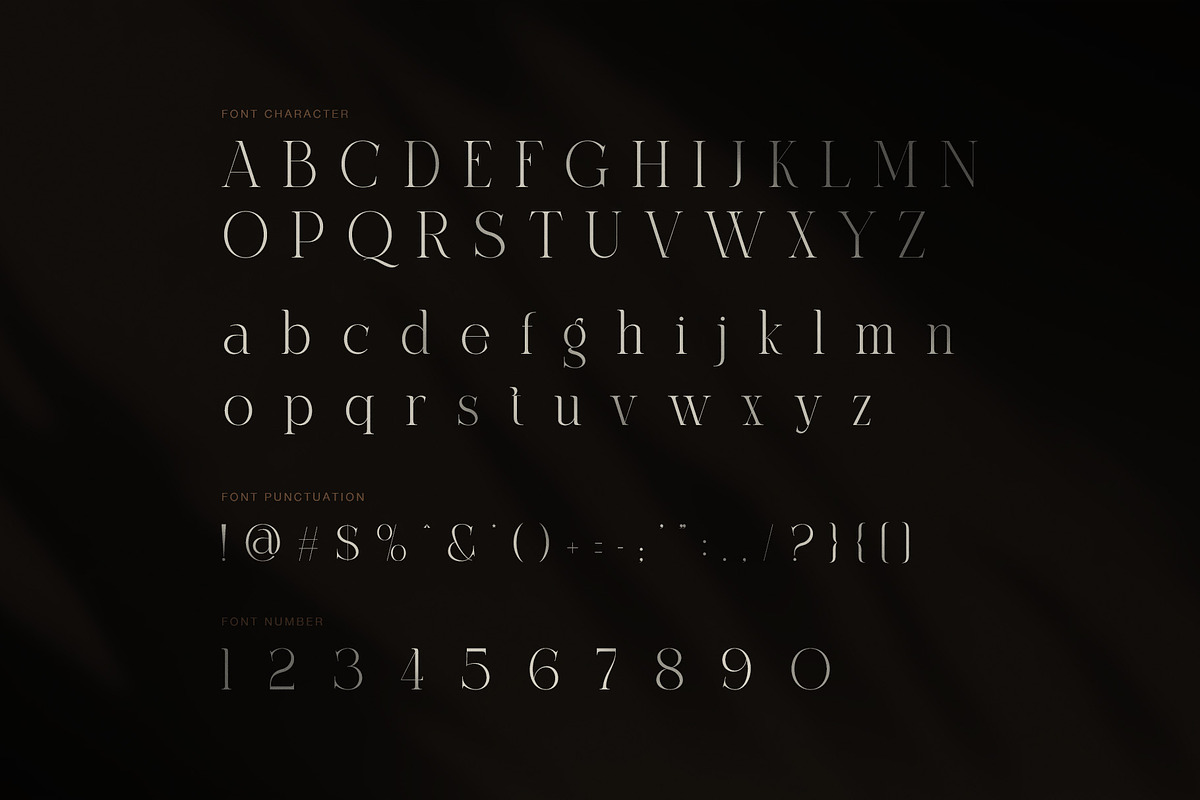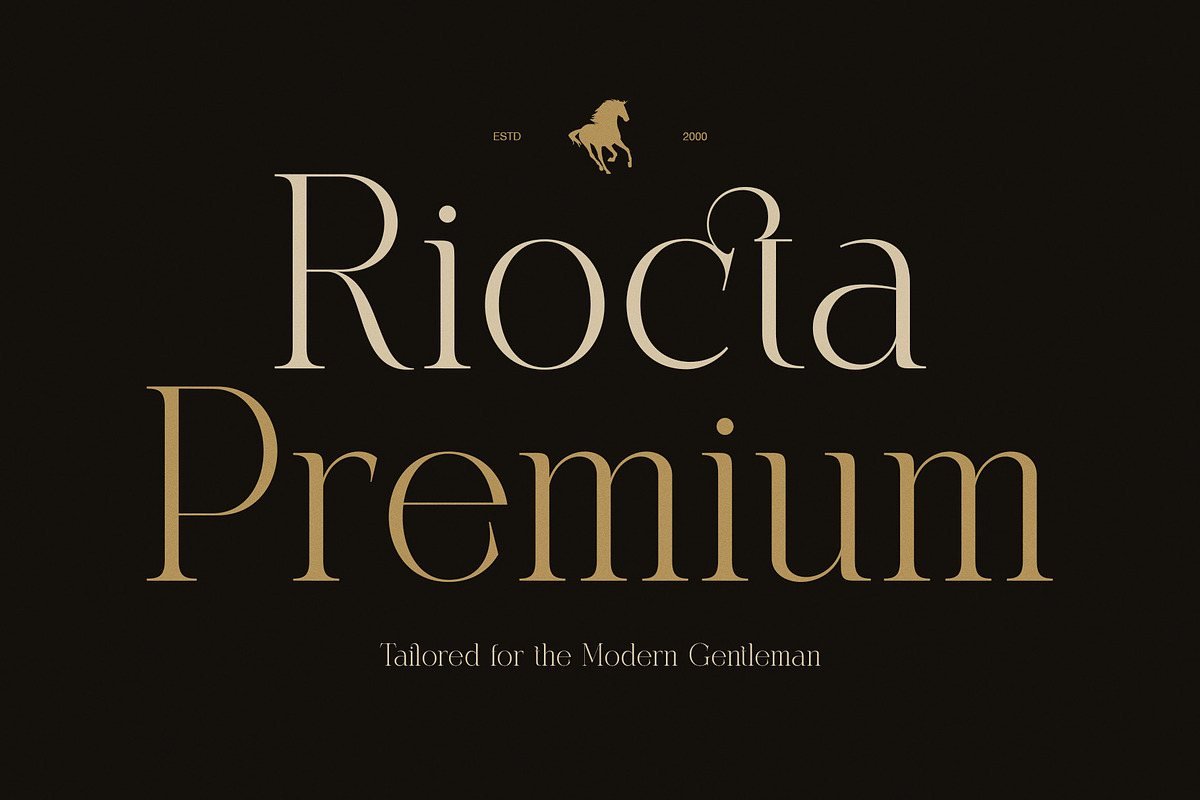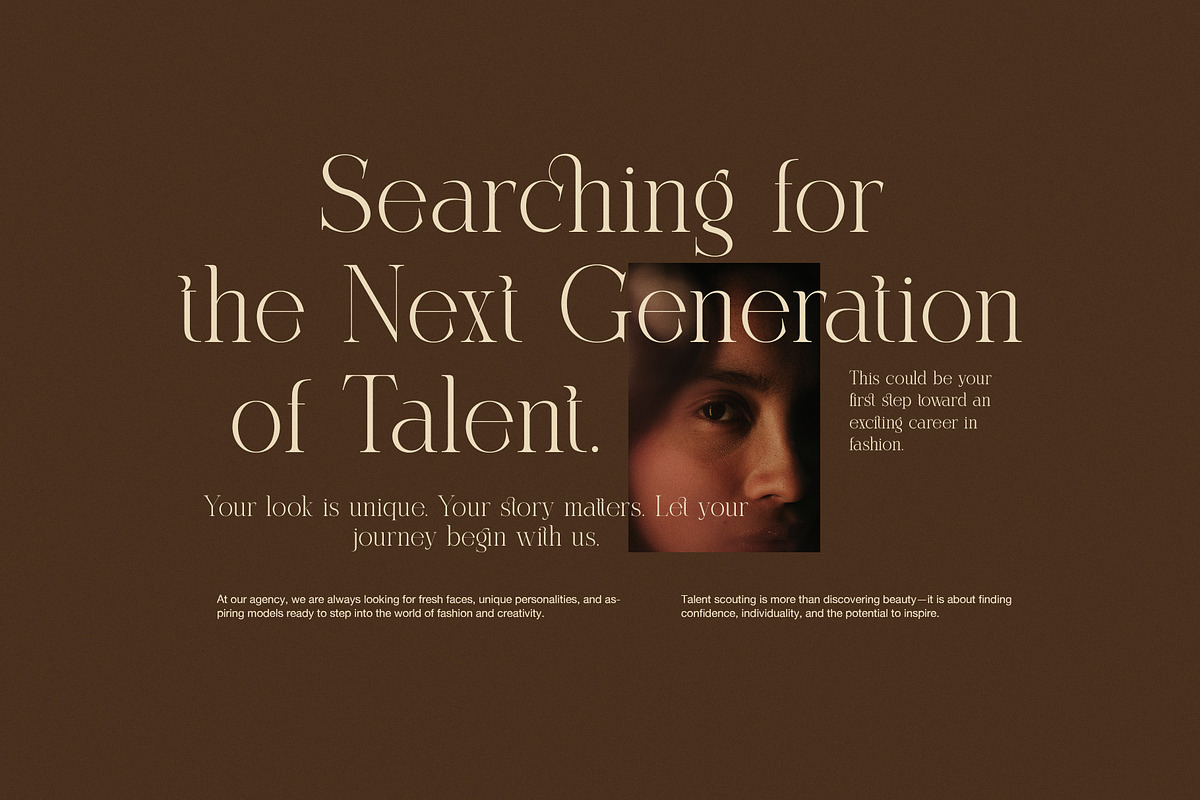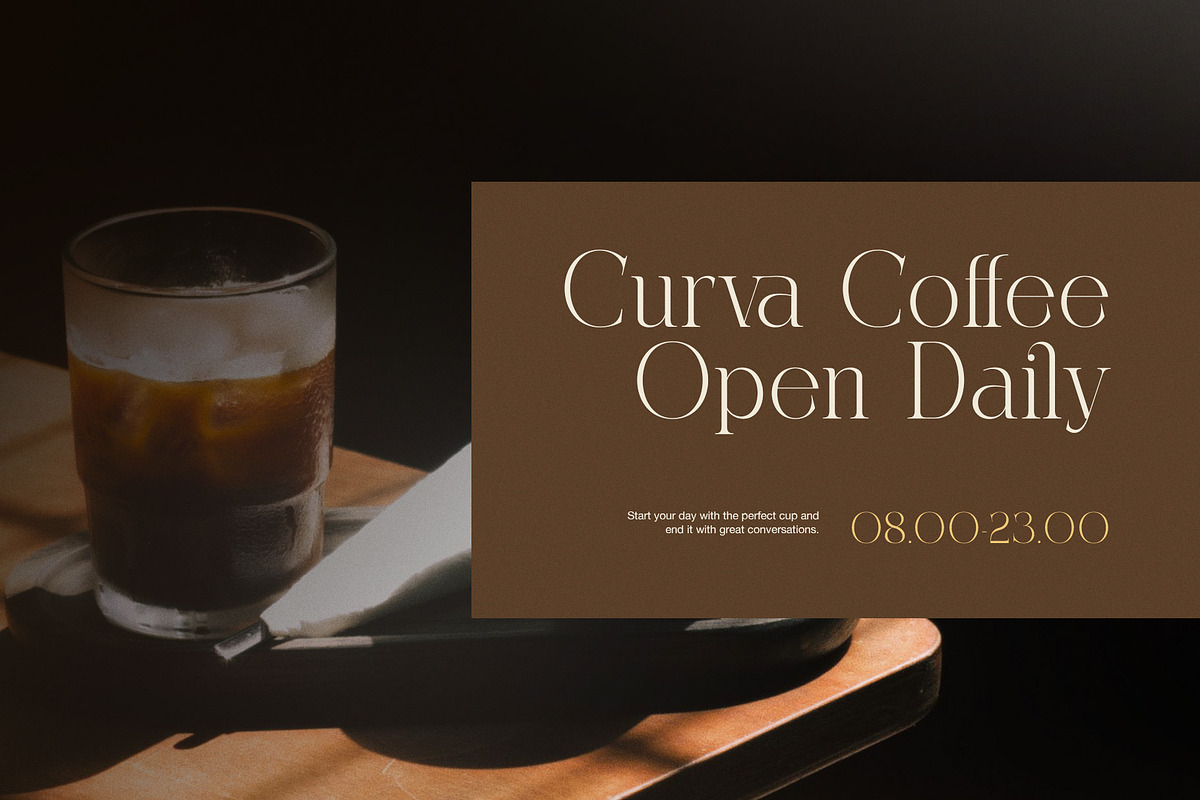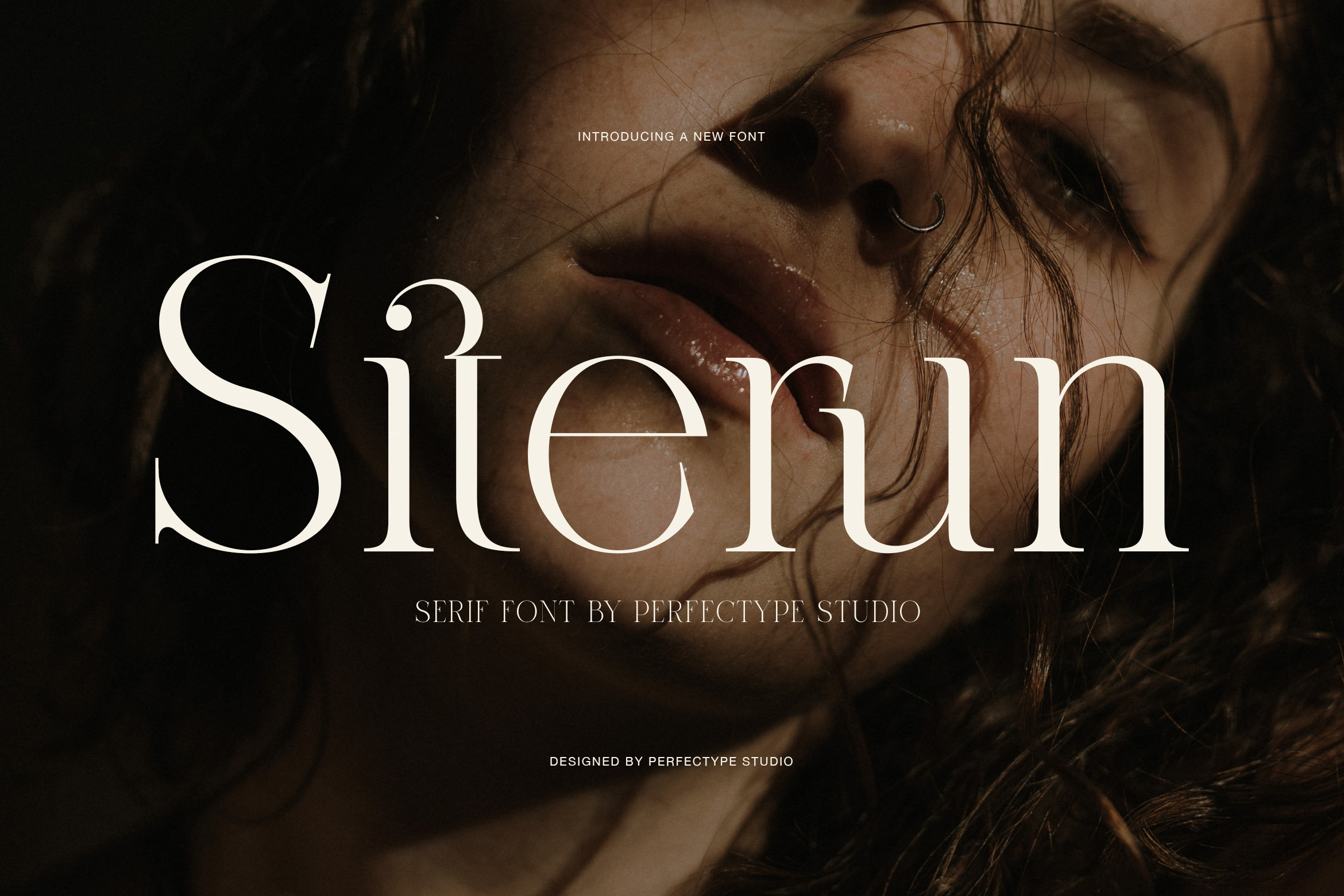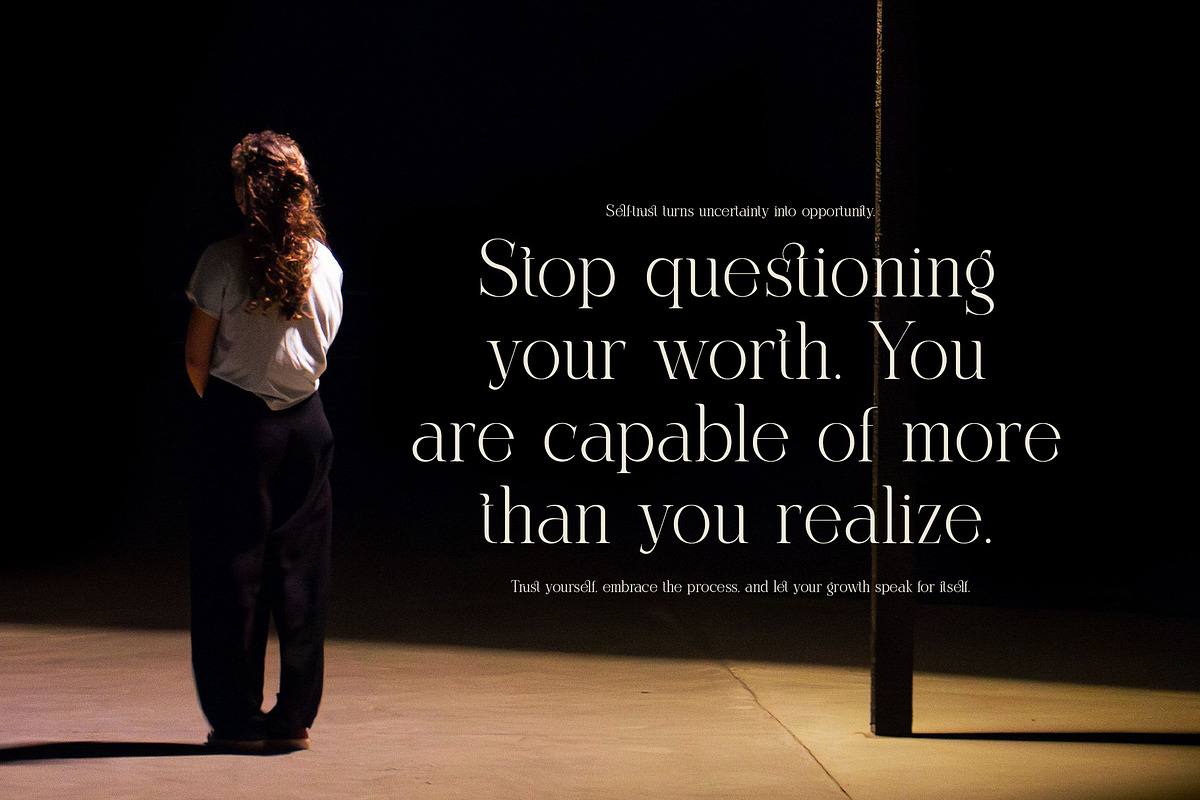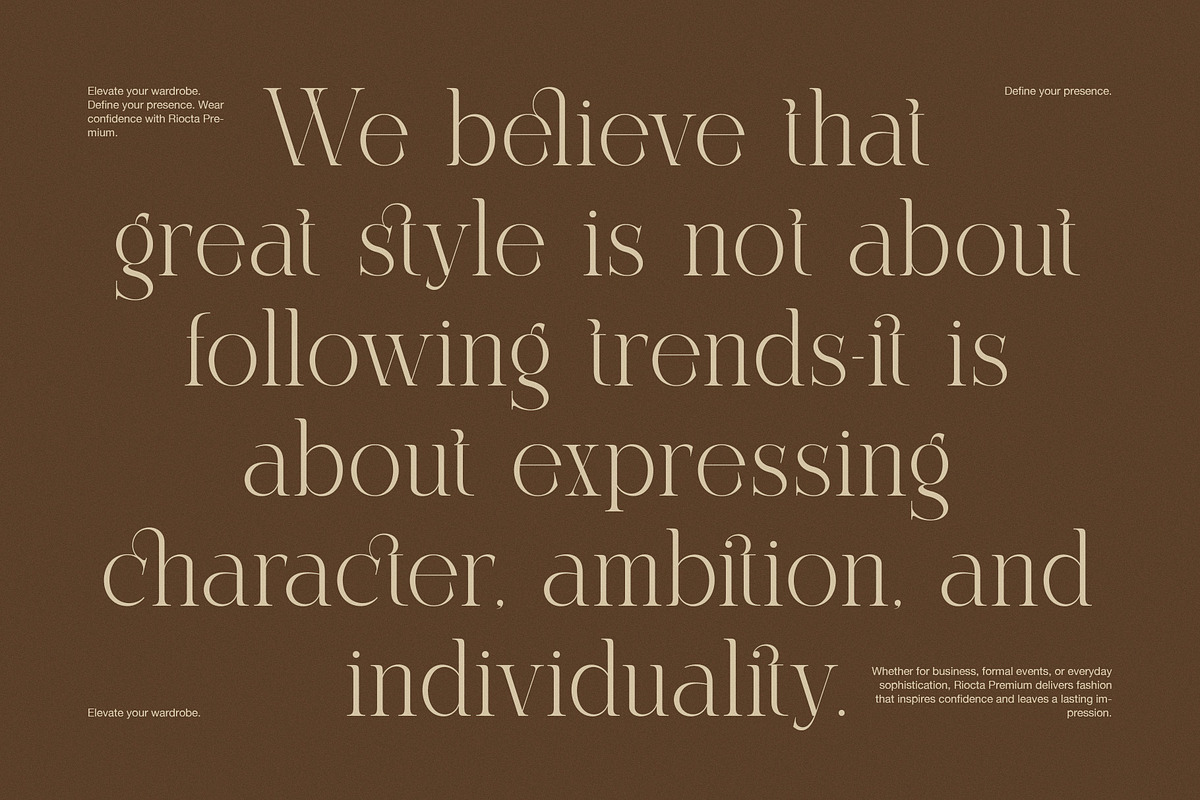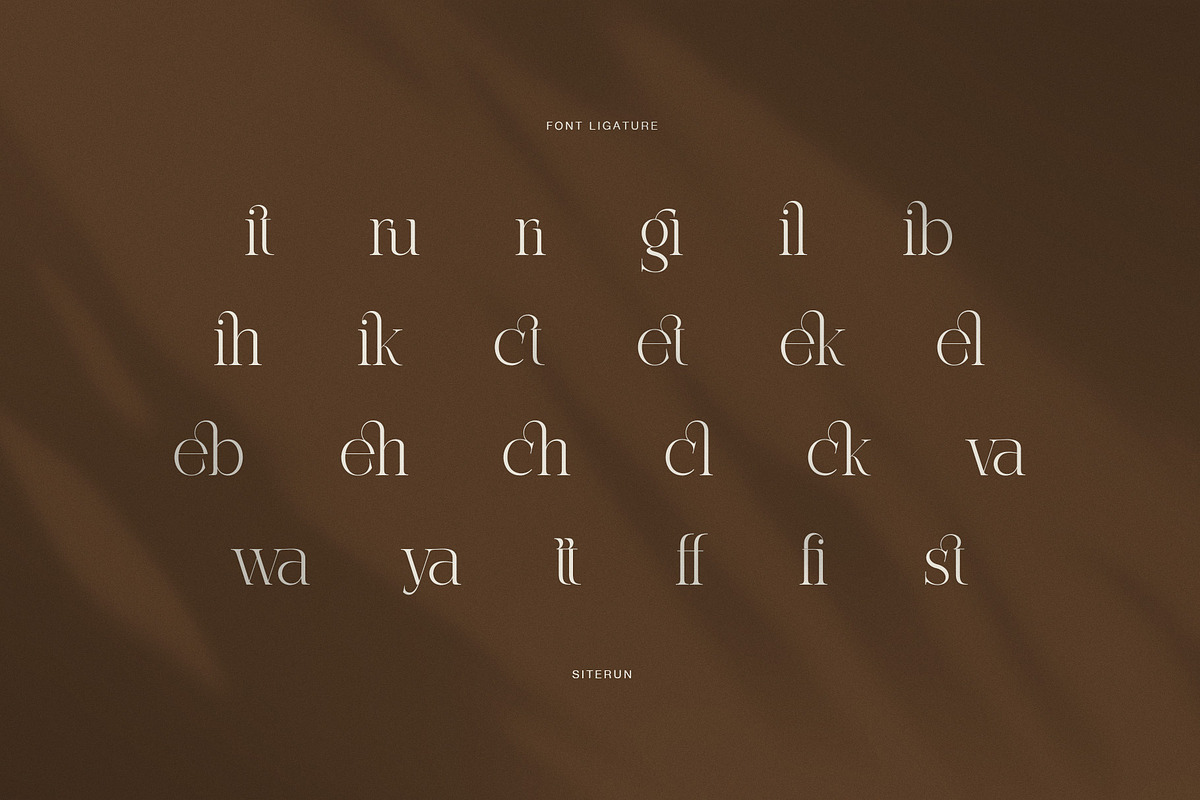
Siterun Elegant Serif Font
Siterun is an elegant high contrast serif font designed for luxury branding, fashion, editorial layouts, and display typography. Its tall proportions, fine hairlines, and strong thick-to-thin contrast create a graceful look that feels polished and modern. At the same time, curved details give each word a distinctive rhythm.
The typeface has a sophisticated character that works especially well when typography becomes the main visual element. Its large letterforms create a confident presence, while delicate strokes add a softer touch. Therefore, Siterun can bring depth to minimal layouts and brand presentations.
Distinctive Ligatures and Letterforms
One of Siterun’s strongest features is its collection of decorative ligatures. These combinations create smooth connections between selected characters and add a personal feel to headlines and names. In addition, several lowercase letters have graceful curves that make the typeface memorable.
Siterun is especially suitable for:
Fashion and luxury branding
Clothing and lifestyle brands
Editorial magazines and campaigns
Beauty and skincare identities
Coffee shops and boutique businesses
Wedding invitations and stationery
Photography portfolios
Logos, headlines, and social graphics
Elegant Display Typography
Because of its high contrast, Siterun performs best at larger sizes where its fine strokes remain visible. It is ideal for brand names, campaign headlines, magazine covers, short quotes, packaging, and presentation titles. Meanwhile, its lowercase characters create a calmer tone for supporting text.
The font also works well beside clean sans serif families. As a result, designers can create clear hierarchy while keeping the composition stylish and balanced. Its numerals and punctuation follow the same visual language, helping design elements feel connected.